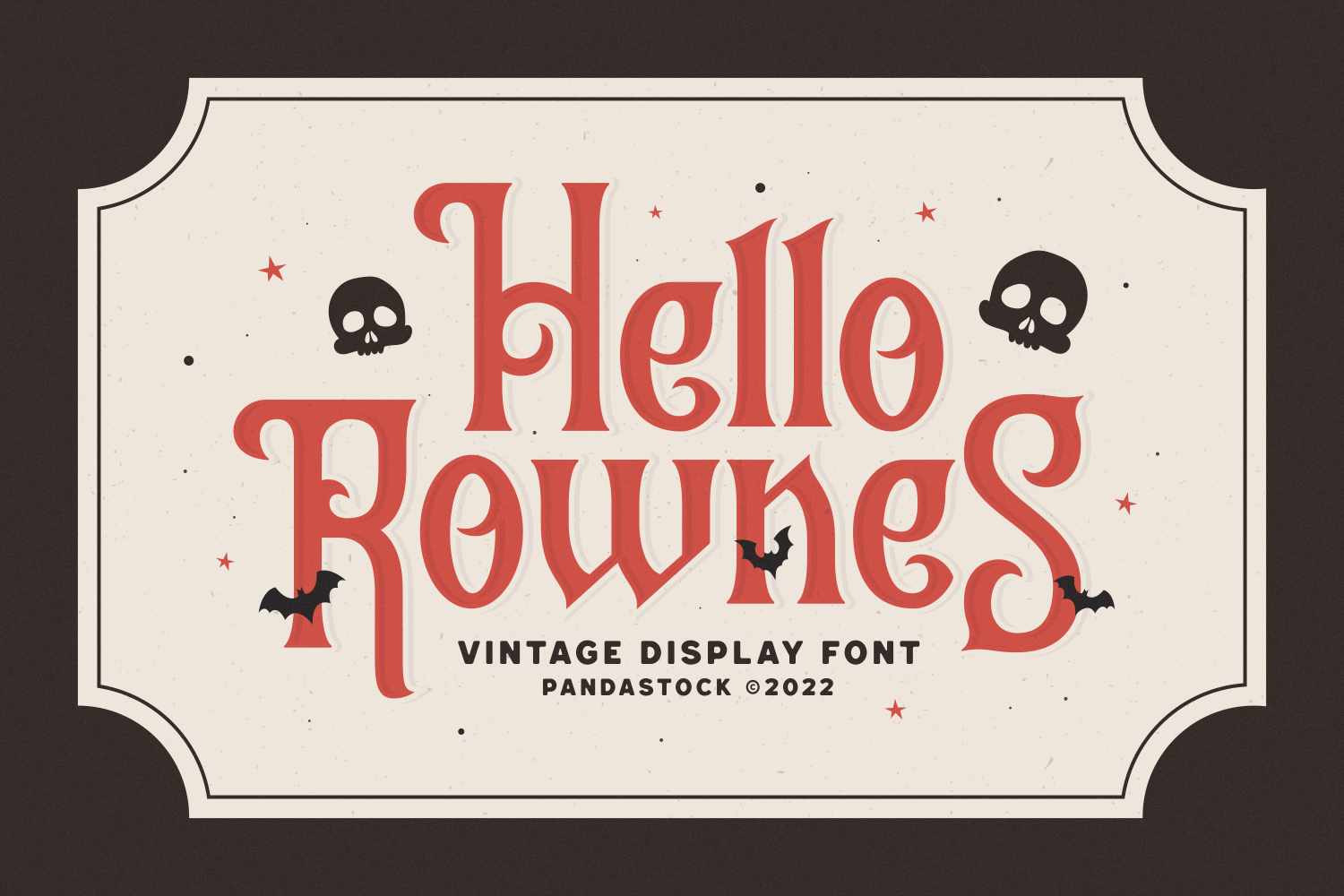
Hello Rownes - Vintage Horror Font
Hello Rownes is a vintage horror font inspired by gothic typography styles, blending cheerful and spooky elements, designed specifically for halloween or horror themed contexts. Its tall, slender letterforms are emphasized by exaggerated serifs and ornamental swirls. This font combines old style serif typography with unique accents and curves, giving the letters a handcrafted, decorative appearance.
This font is best suited for large titles, posters, event promotions, party invitations, book covers, seasonal product packaging, covers for spooky or fantasy storybooks, halloween themed designs, merchandise, or product packaging that needs to attract attention and convey a festive and mysterious atmosphere.